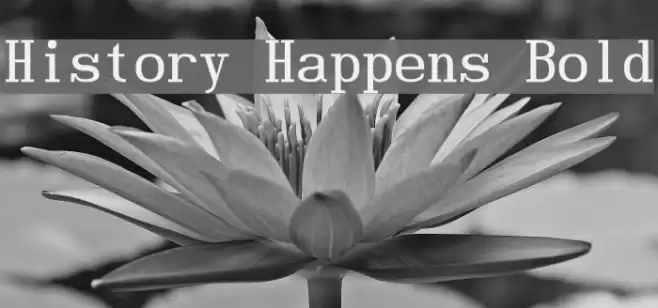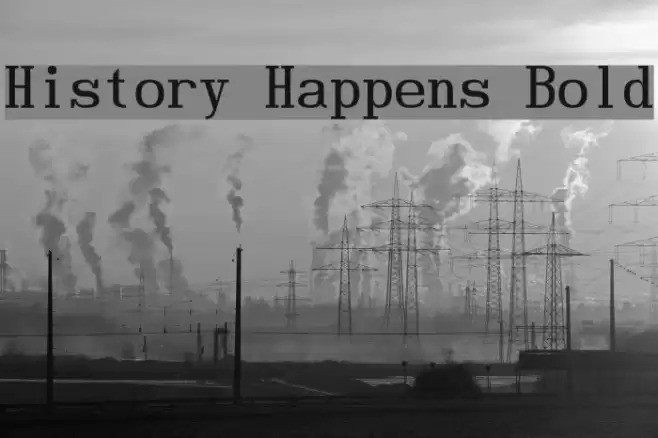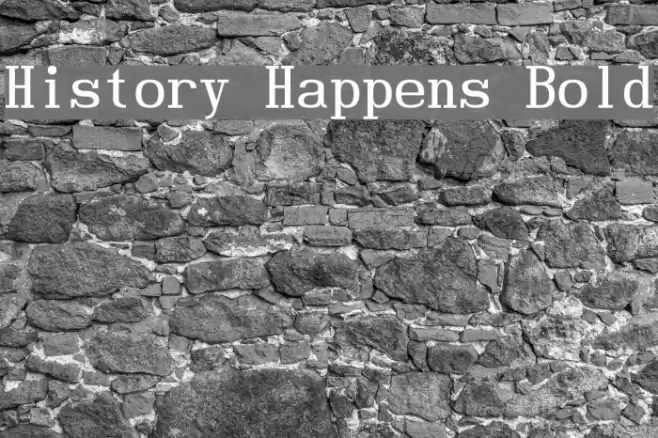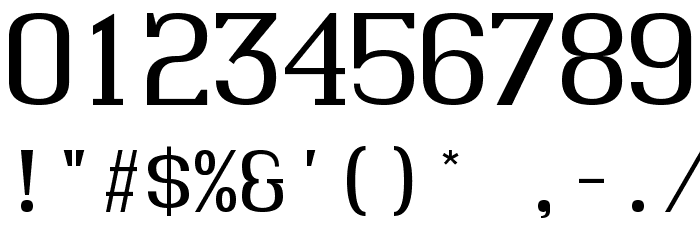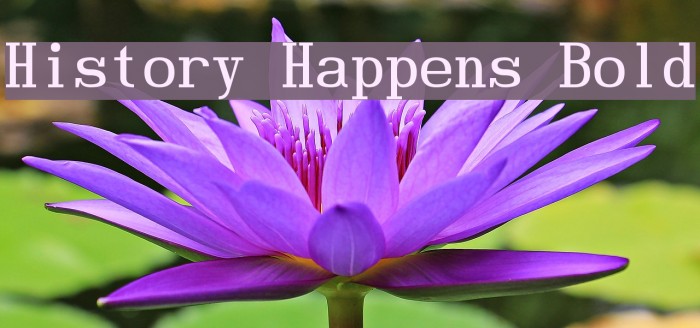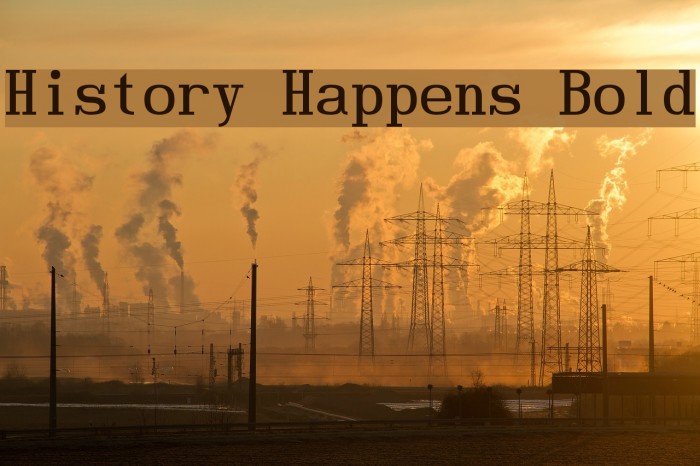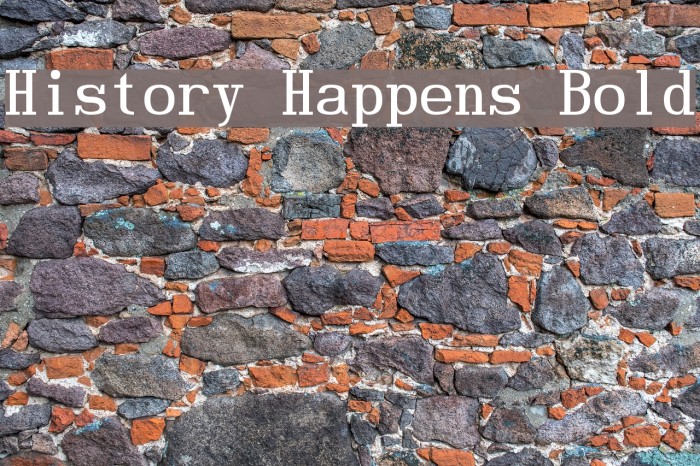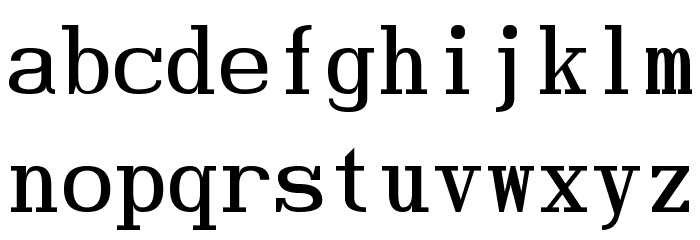
History Happens Bold Font
History Happens Bold Description
This font features a bold and commanding presence with its slab serif design. The characters are robust and have a strong vertical emphasis, making them highly legible and impactful. The serifs are pronounced and add a classic touch to the overall modern aesthetic. The uppercase letters are tall and assertive, while the lowercase letters maintain a consistent weight, ensuring readability. The numerals are clear and distinct, suitable for various applications. Special characters are well-defined, enhancing the font's versatility. The overall style is a blend of traditional and contemporary elements, making it suitable for a wide range of design projects.
A bold slab serif font with a modern yet classic appeal from Uncategorized fonts.
- Proposed Projects: Ideal for headlines, posters, branding, and editorial design.
- Use Case: Headlines, Logos, Editorial